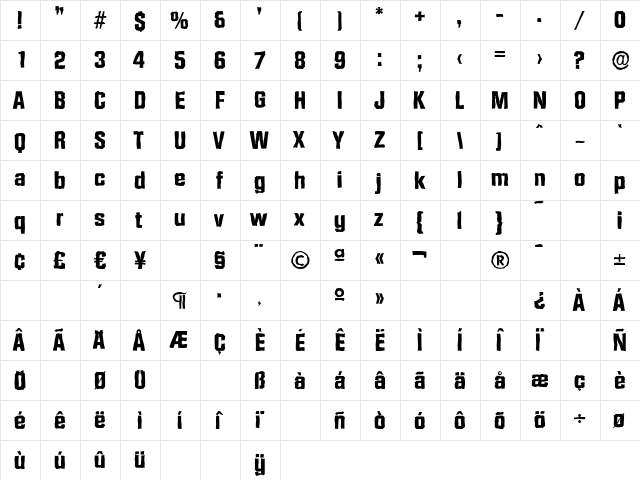
DiamanteAntique-Xbold Regular
Design Context for DiamanteAntique-Xbold Typeface
DiamanteAntique-Xbold has the warm character of retro typography — evoking diners, record sleeves, and the golden age of print advertising. The heavy weight commands attention and anchors typographic hierarchies.
Font Pairing: Combine DiamanteAntique-Xbold with a simple slab or neutral sans — period-accurate companions reinforce the vintage feel without competing for attention.
Pro Tip: Lean into DiamanteAntique-Xbold's period character by pairing it with aged paper textures, muted colour palettes, and vintage illustration styles.